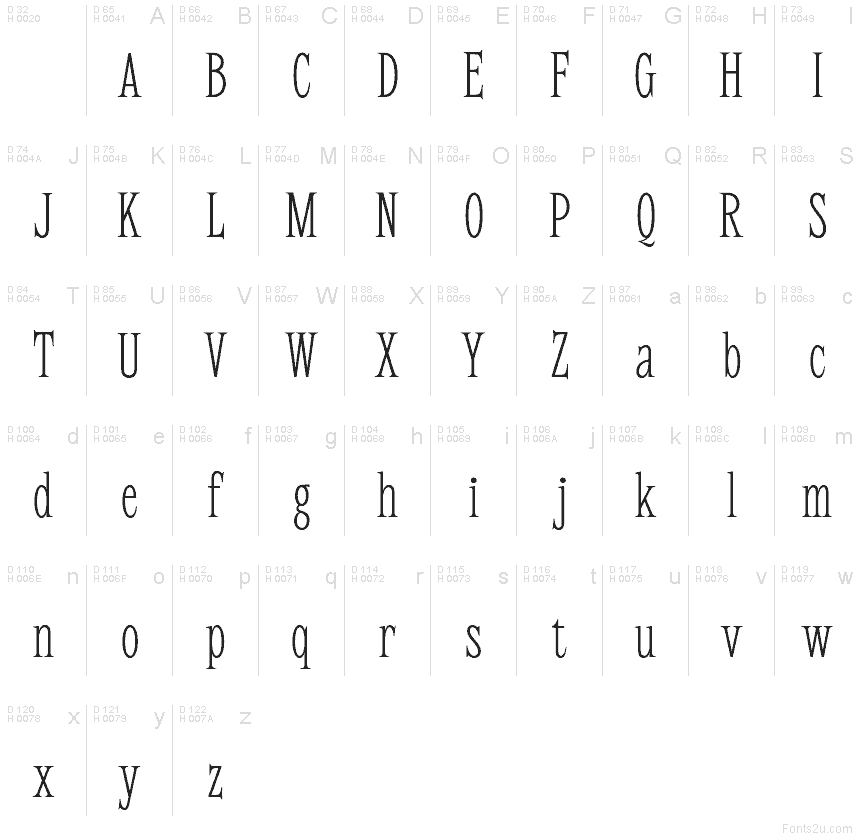
CS Granger Regular Demo
CS Granger font is a serif font with a condensed shape and a light build created by Craft Supply Co. Elegance shines through every letter with the classic and formal appearance of the characters, contributing to an authoritative and strong yet simple display. With some Victorian fear motifs that can only be fully appreciated if used for headings.
This free serif font is recommended for branding projects, particularly those related to hotels or transportation businesses, magazines with stylish covers, or newspaper designs. Focus on what’s important in books/movies/show posters or share the news hallways signs/exhibition displays/and ads.